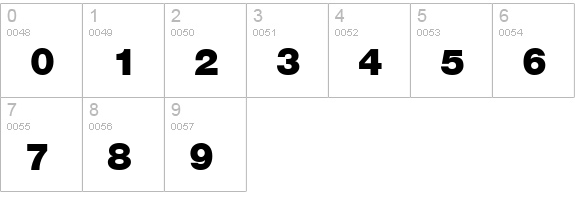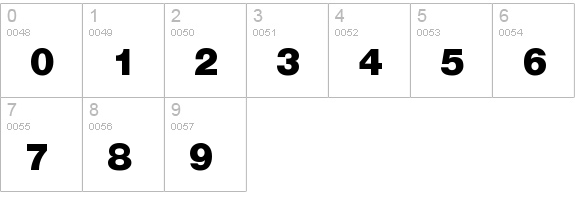
Sans Black Font Details
Sans Black is a maximum-weight, dramatic variant in the Sans typeface family \xE2\x80\x94 well suited to maximum-impact headlines, posters, and packaging.
Sans Black is a modern and versatile font that exudes sophistication and elegance. With its bold and clean lines, this typeface is perfect for creating eye-catching headlines, logos, and branding materials. The thick strokes of Sans Black command attention and make a strong visual impact, while its balanced letterforms ensure readability across various mediums. This font is designed to make your designs stand out from the crowd. Whether you are working on a website, a print project, or an advertisement, Sans Black will add a touch of professionalism and style. Its sleek and contemporary aesthetic makes it suitable for a wide range of applications, from fashion and beauty to technology and finance. What makes Sans Black even more appealing is that it is freely available to download at FontsMarket.com. This means that you can access this high-quality font without any cost or restrictions. FontsMarket.com is a trusted source for fonts, offering a vast collection of free and premium fonts for designers and creatives. By choosing Sans Black, you not only get a visually stunning font, but also the freedom to use it in your projects without any limitations. Its versatility and accessibility make it a valuable asset for designers, allowing them to unleash their creativity and bring their visions to life. So why wait? Download Sans Black from FontsMarket.com and elevate your designs to new heights. With its bold presence and timeless appeal, this font will help you make a lasting impression and communicate your message with clarity and style.